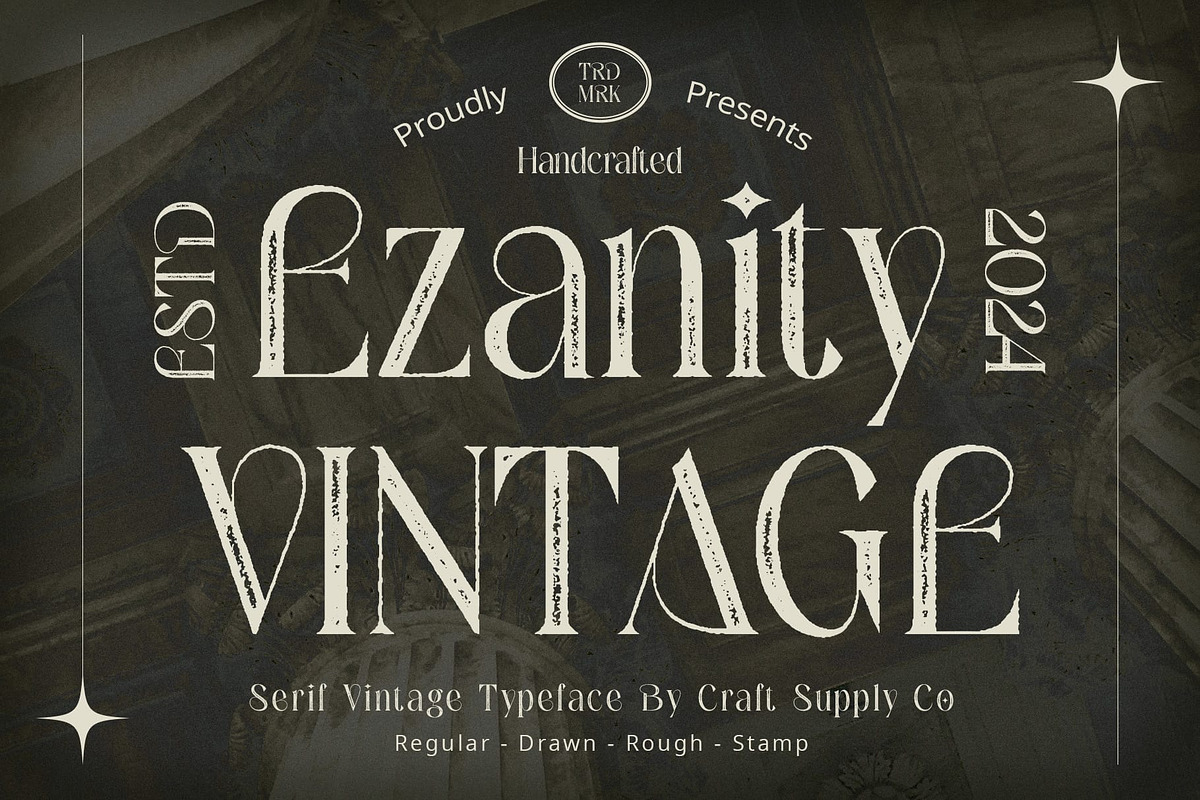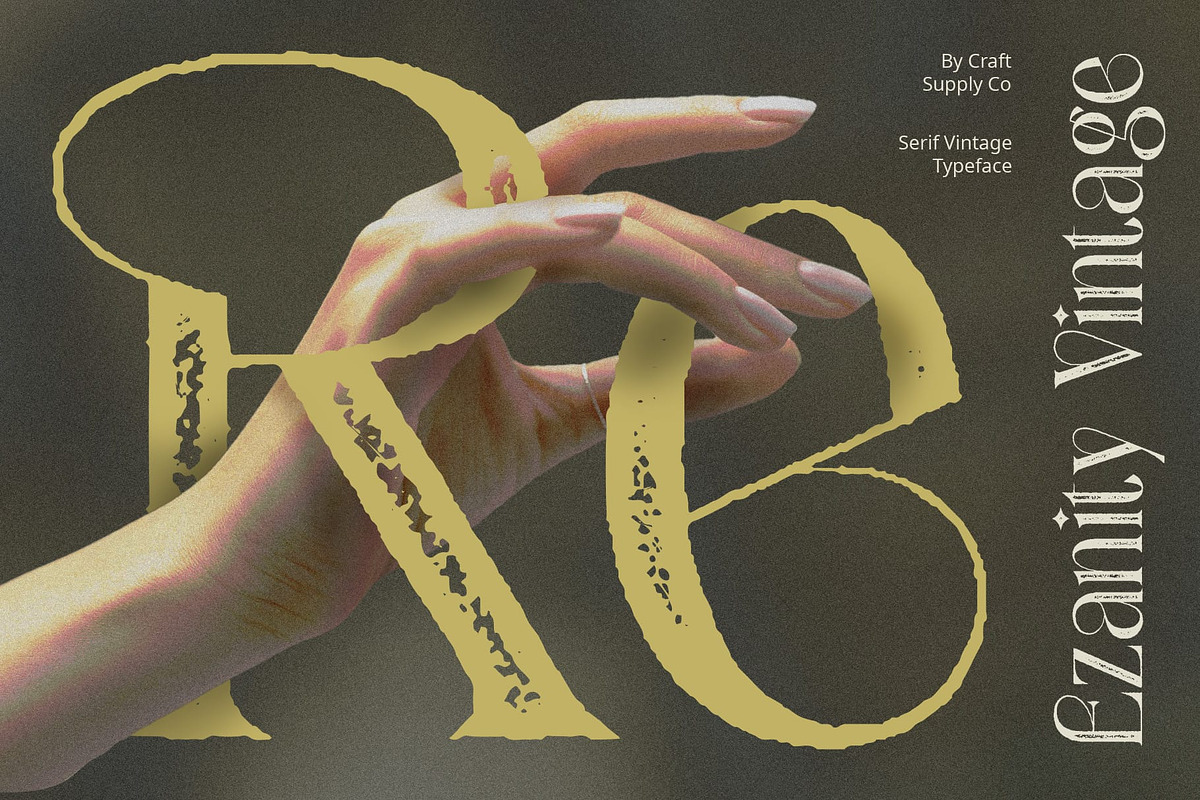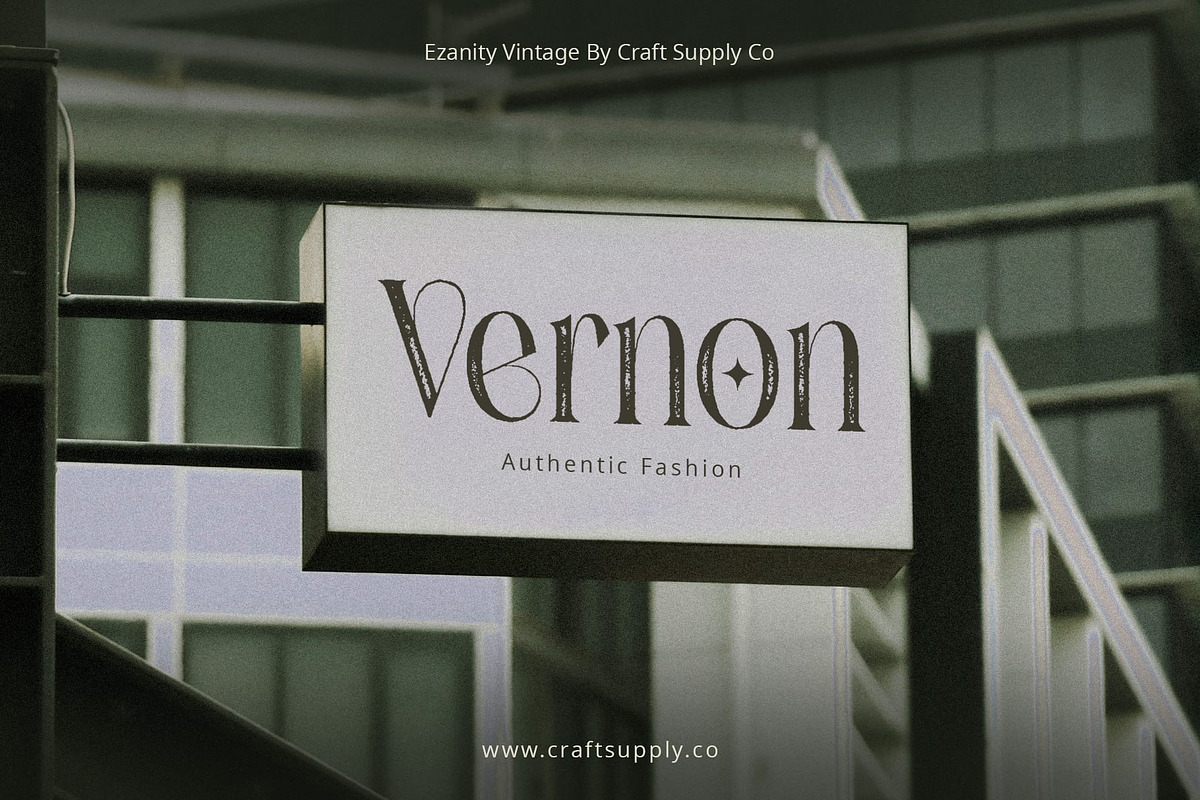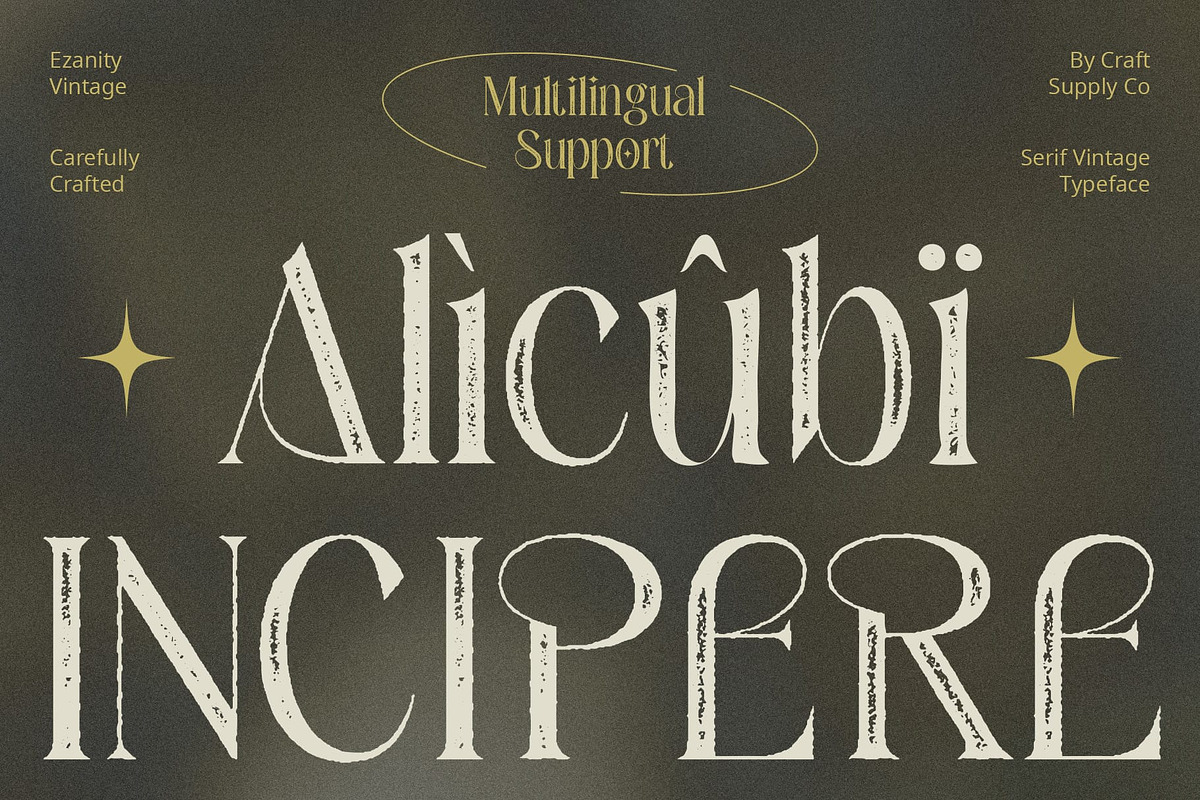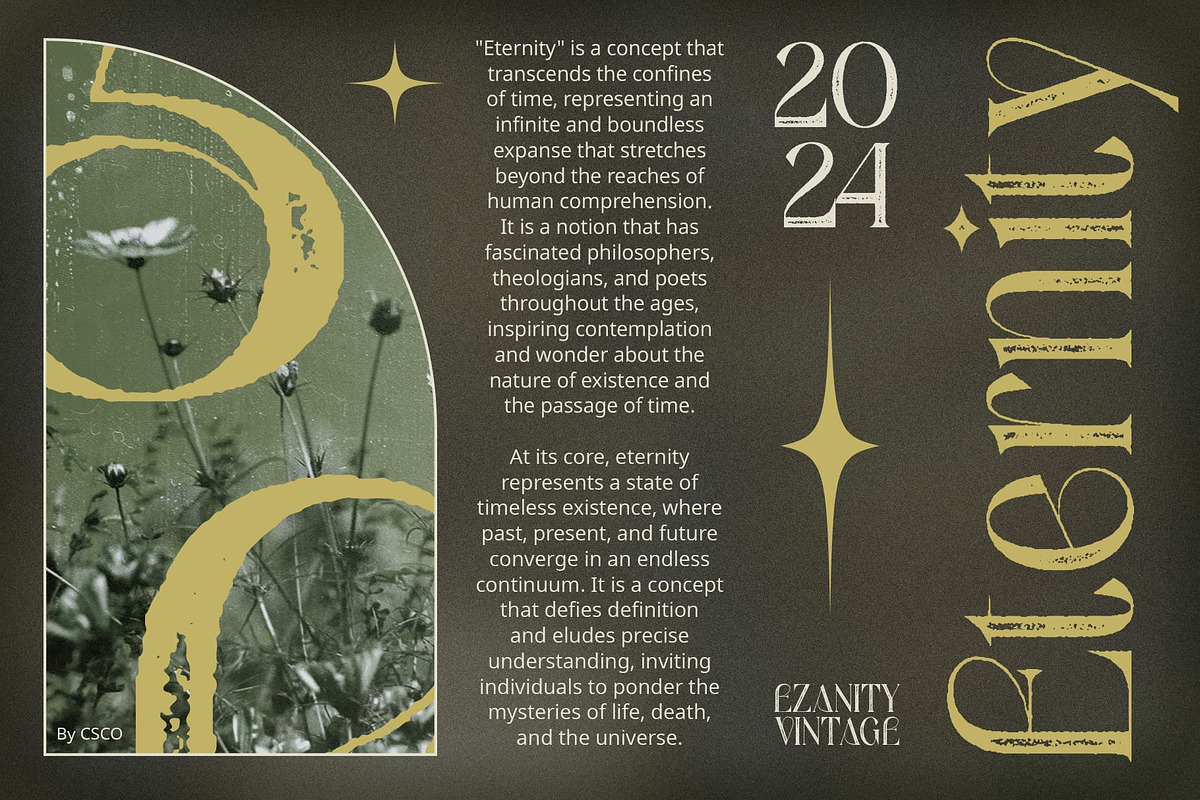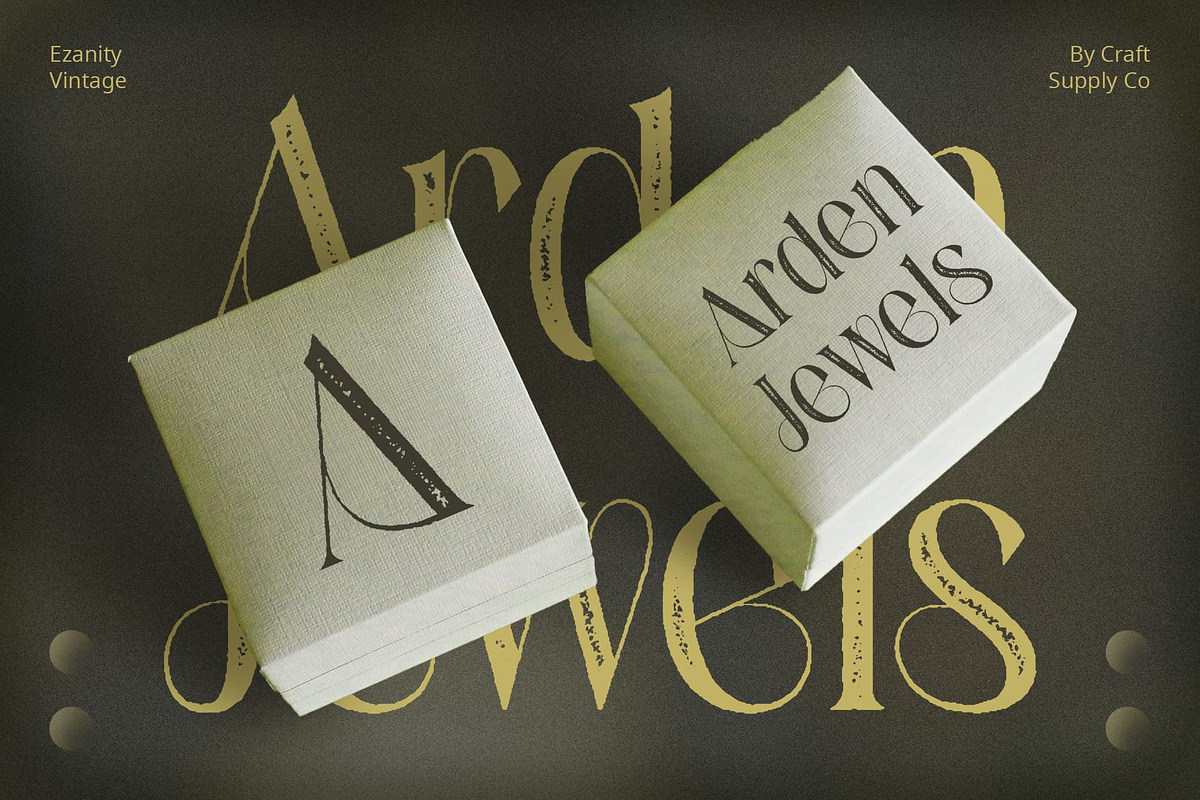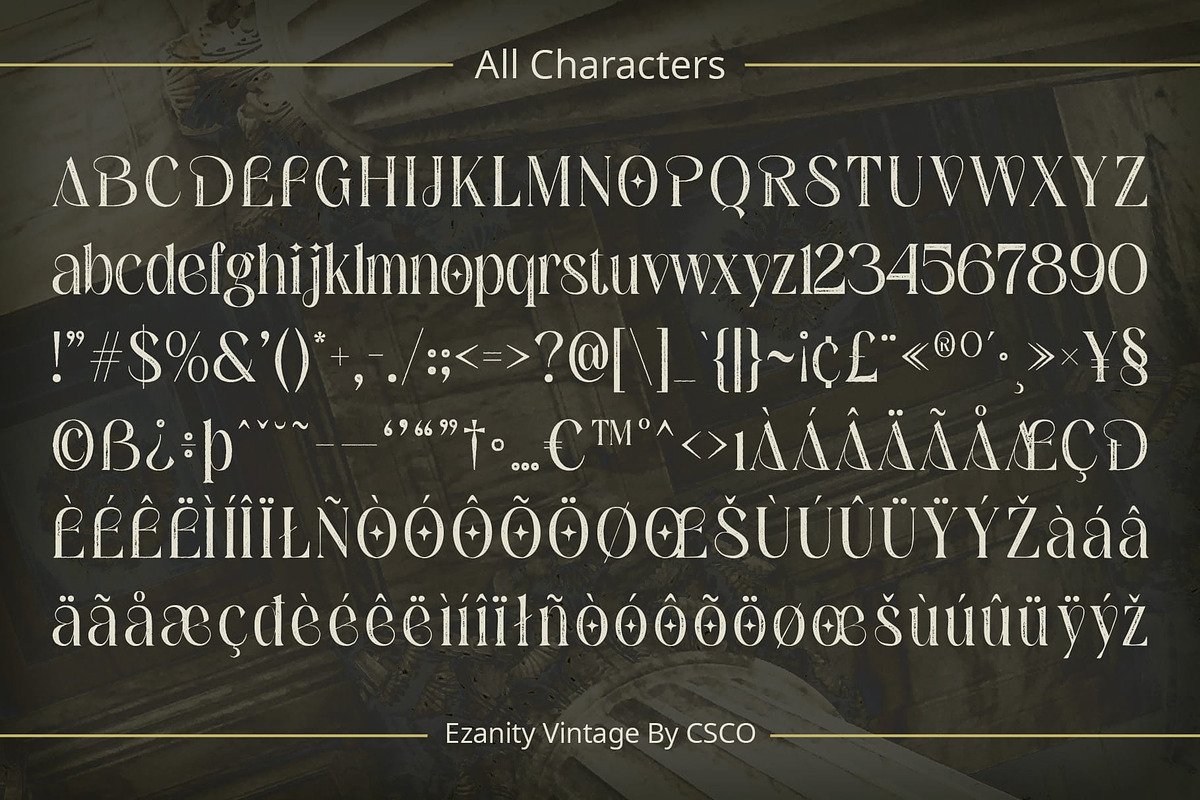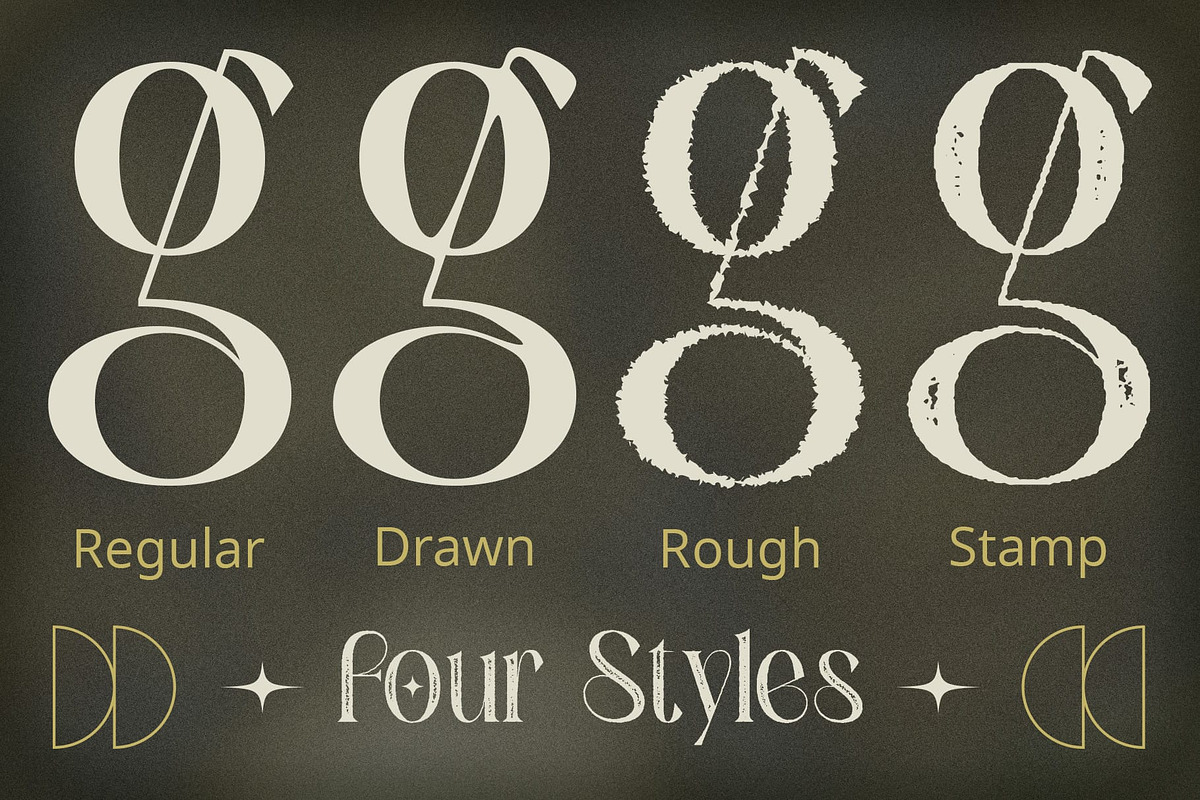
Ezanity Vintage
Ezanity Vintage: A Nod to Art Nouveau Elegance
Art Nouveau Inspiration Ezanity Vintage draws inspiration from the elegance of Art Nouveau, featuring serifs with graceful curves reminiscent of the movement’s iconic motifs.
Distinctive Stem Details Highlighted by intricate stem details and subtle curves, This font serif characters exude a sense of refinement and sophistication, adding a touch of vintage charm to any project.
Rough Drawn Stamp Effect The font showcases a rough drawn stamp effect, enhancing its vintage appeal with a weathered and handcrafted aesthetic reminiscent of bygone eras.
Ideal for Vintage Designs This font is the perfect choice for vintage-inspired designs, such as posters, packaging, and branding materials. Its unique blend of Art Nouveau influence and rough drawn stamp effect adds character and authenticity to any project.
Elegance with a Vintage Twist This font combines the elegance of Art Nouveau with a rough drawn stamp effect, resulting in a font that exudes vintage charm and sophistication. Whether used in print or digital media, it adds a touch of nostalgia and personality to any design. Step back in time with Ezanity Vintage and elevate your projects with timeless elegance.